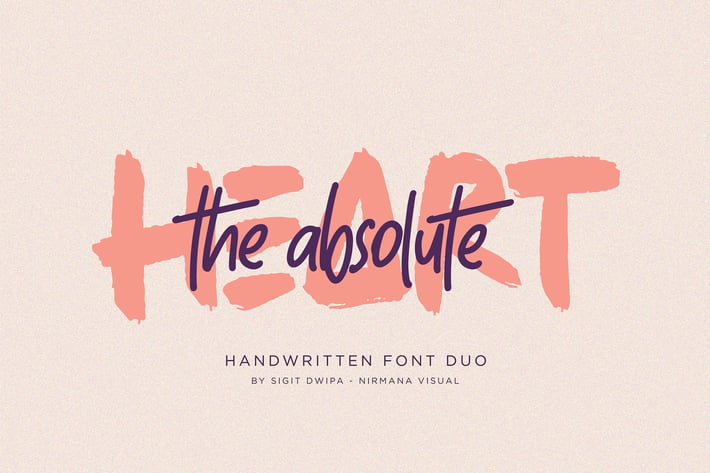
The Absolute - Font Duo
The Absolute - Font Duo with Natural Handwritten Artistic Style,
this is perfect for branding, logos, packaging, masterheads and more.